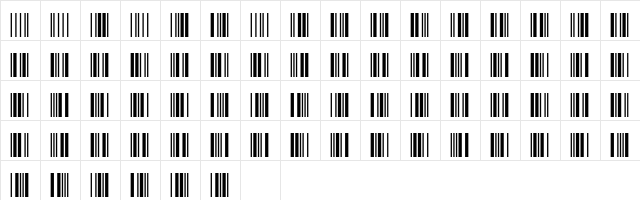
Z: 3of 9 BarCode Regular
Design Context for Z: 3of 9 BarCode Typeface
Z: 3of 9 BarCode uses fixed-width spacing throughout, giving it the structured, systematic character associated with coding environments and technical documentation.